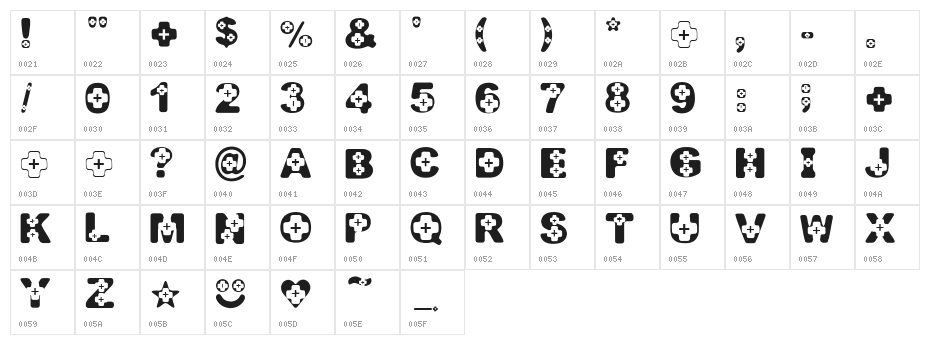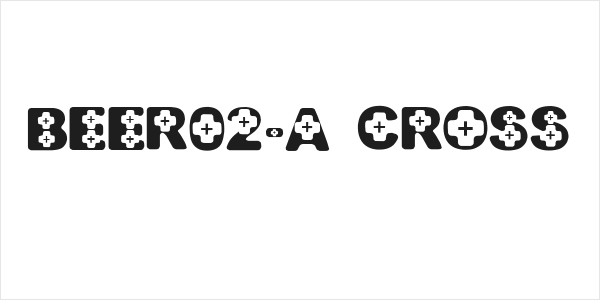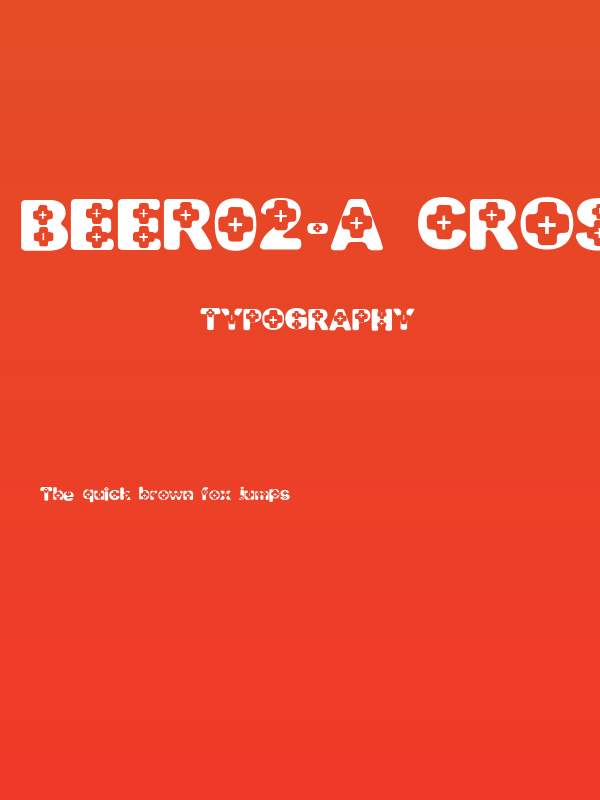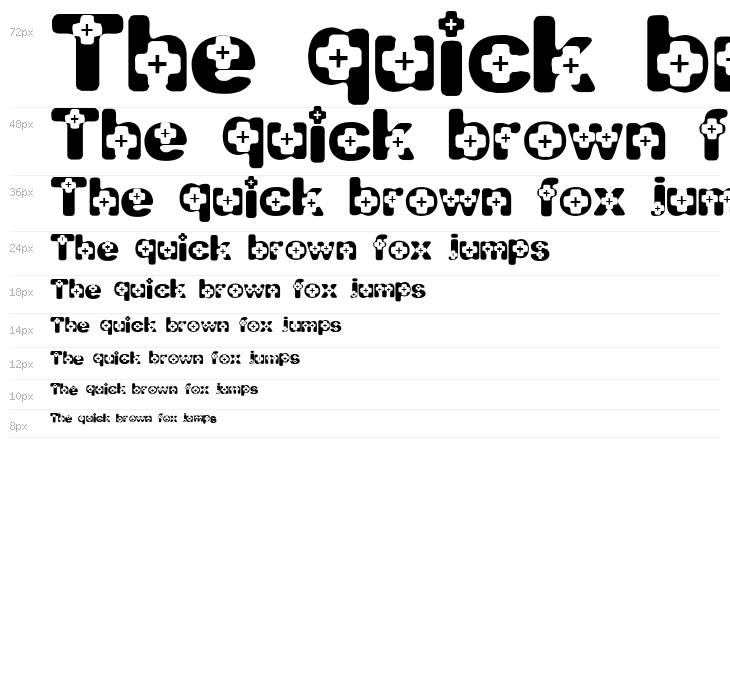
BEER02-A CROSS Font
BEER02-A CROSS Description
This font features a bold, playful design with a unique twist. Each character is adorned with a cross symbol, creating a distinctive and eye-catching appearance. The letters and numbers are rounded and thick, providing a strong visual impact. The consistent use of the cross motif throughout the character set gives it a cohesive and thematic look. This decorative style is both modern and quirky, making it suitable for creative and unconventional projects.
| Overall Style | Modern, Quirky |
| Proposed Projects | Ideal for posters, event flyers, children's book covers, and branding for playful or creative industries. |